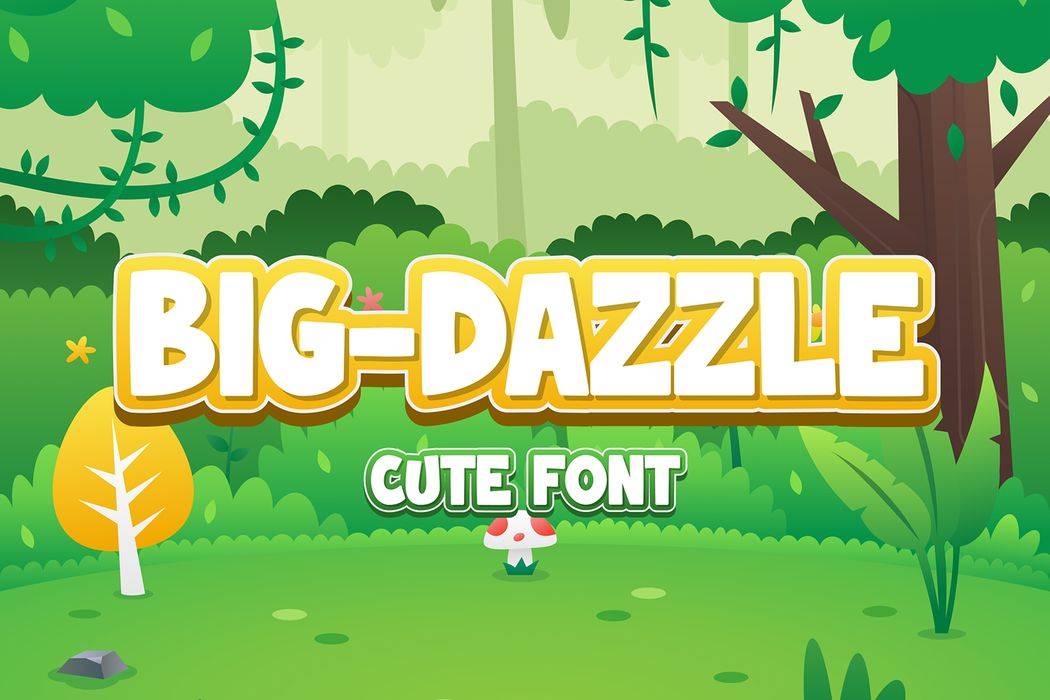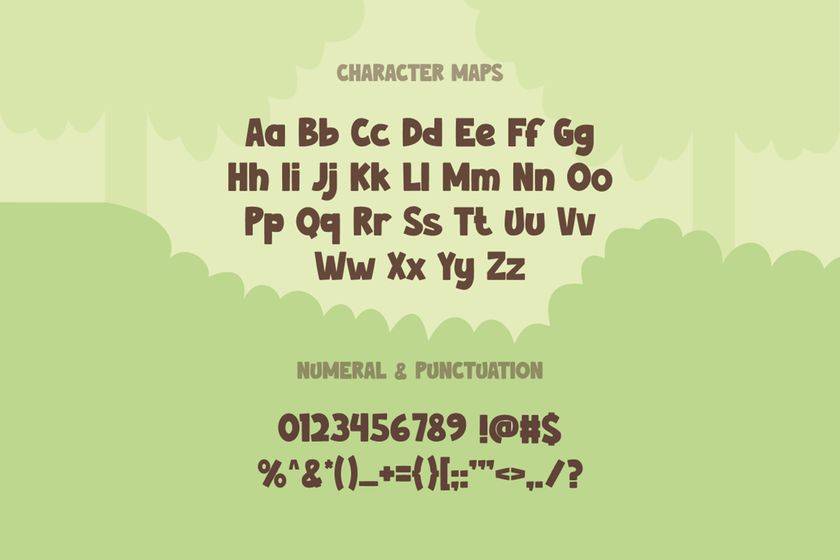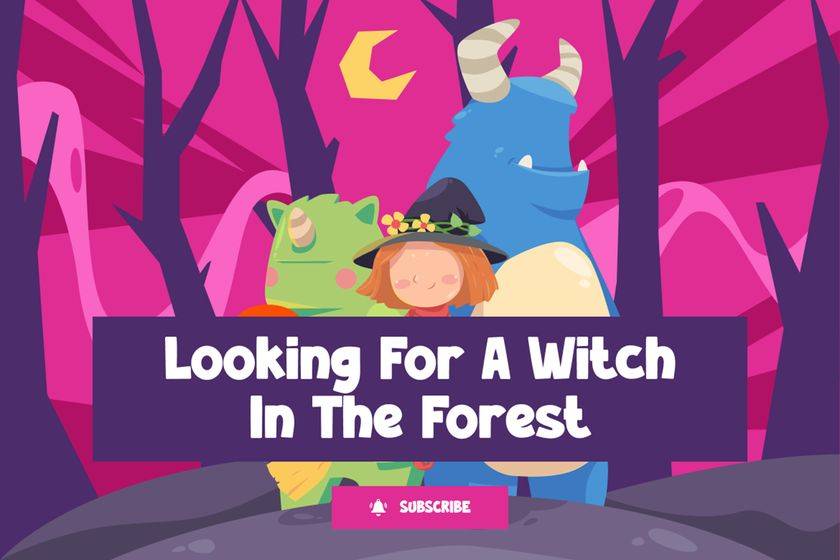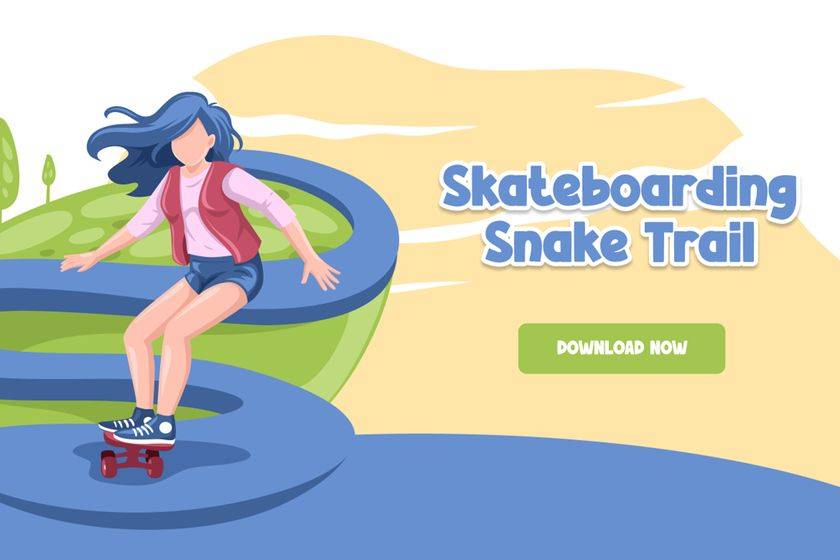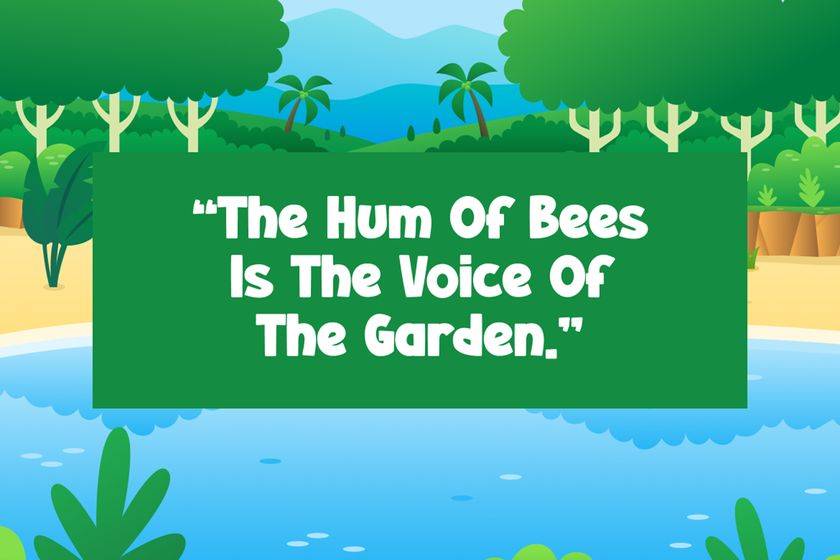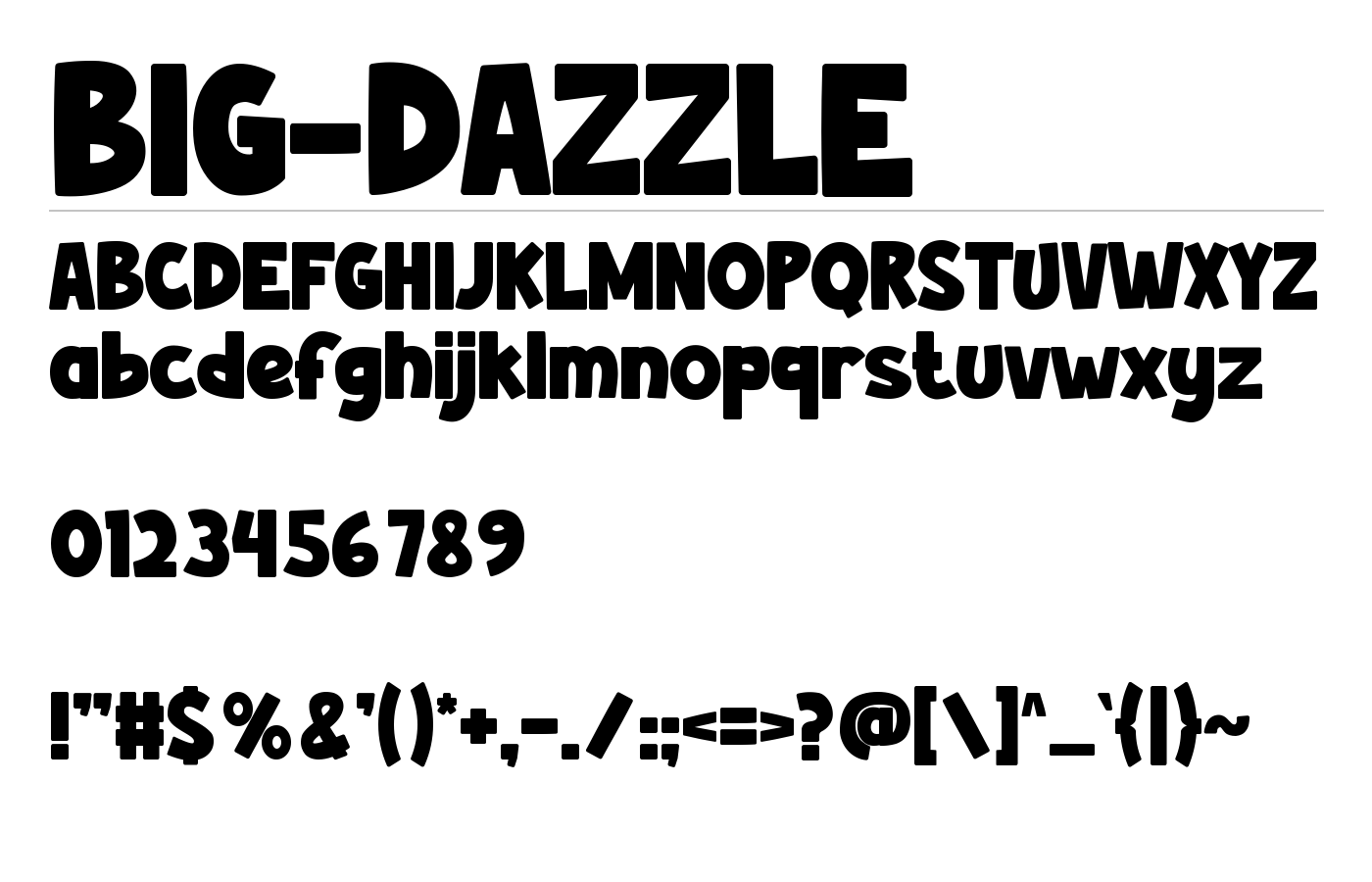
Big Dazzle is a bold, playful sans serif font with a chunky, slightly irregular design that gives it a fun and lively personality. Its strong weight and wide letterforms make it ideal for eye-catching headlines and branding, especially in children's products, casual advertising, or any project seeking an approachable and energetic vibe. This font’s friendly style brings a sense of excitement and accessibility to creative designs.
Big Dazzle Font
About Big Dazzle Font